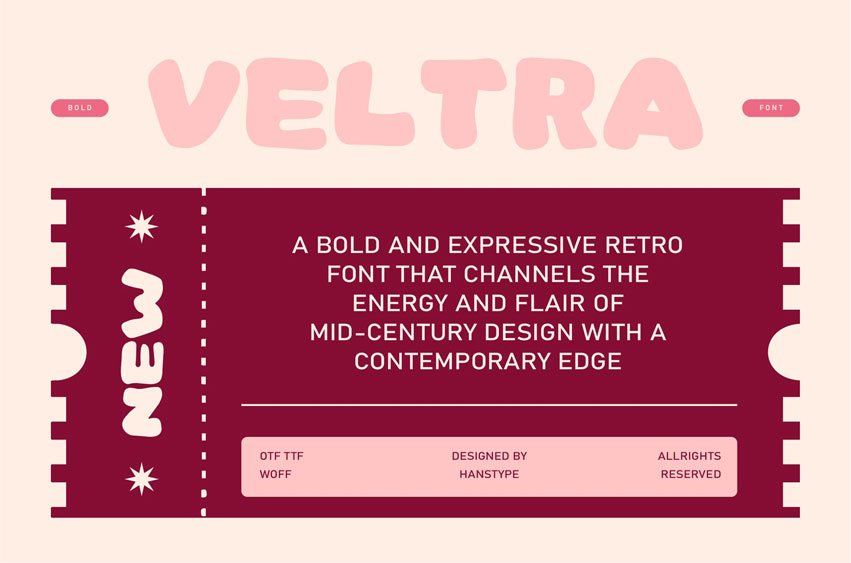
Veltra Font is a bold and expressive retro font that channels the energy and flair of mid-century design with a contemporary edge. Featuring sharp, angular lines and unique character shapes,
Veltra exudes a strong visual impact, making it perfect for attention-grabbing headlines, vintage-inspired branding, and creative projects that demand a distinct, nostalgic vibe.